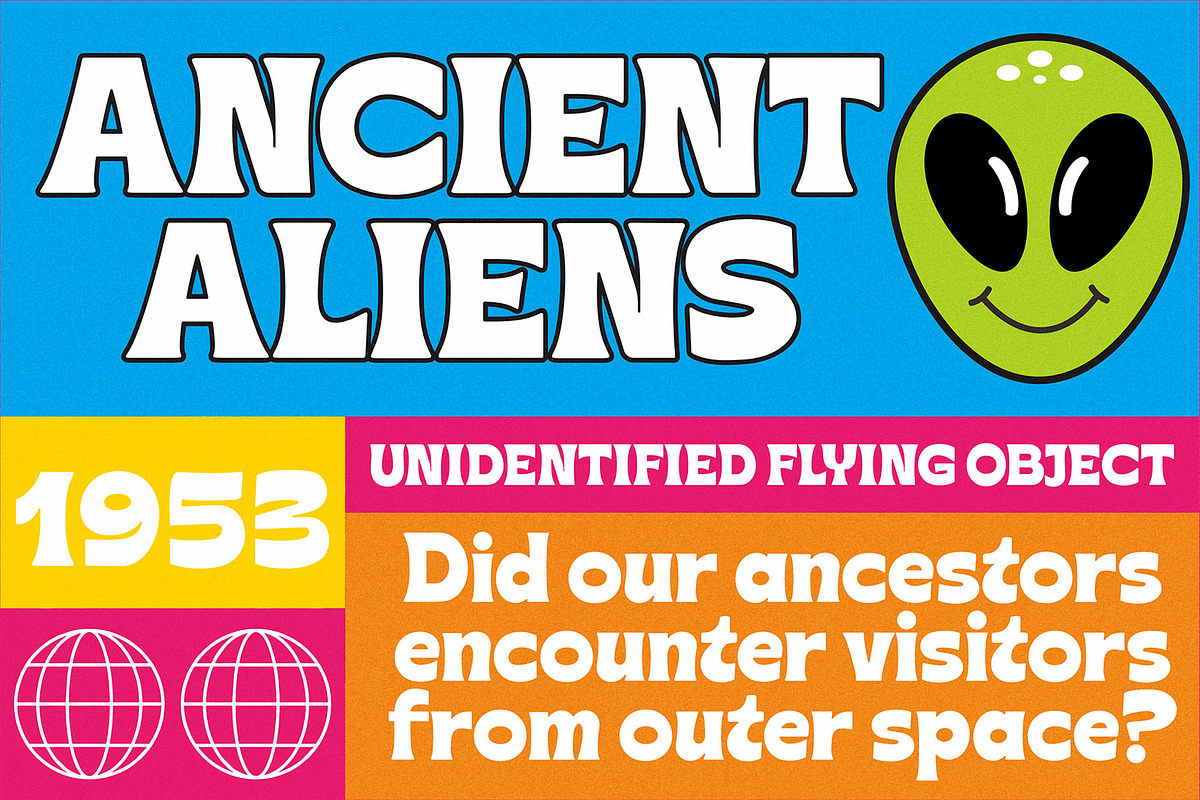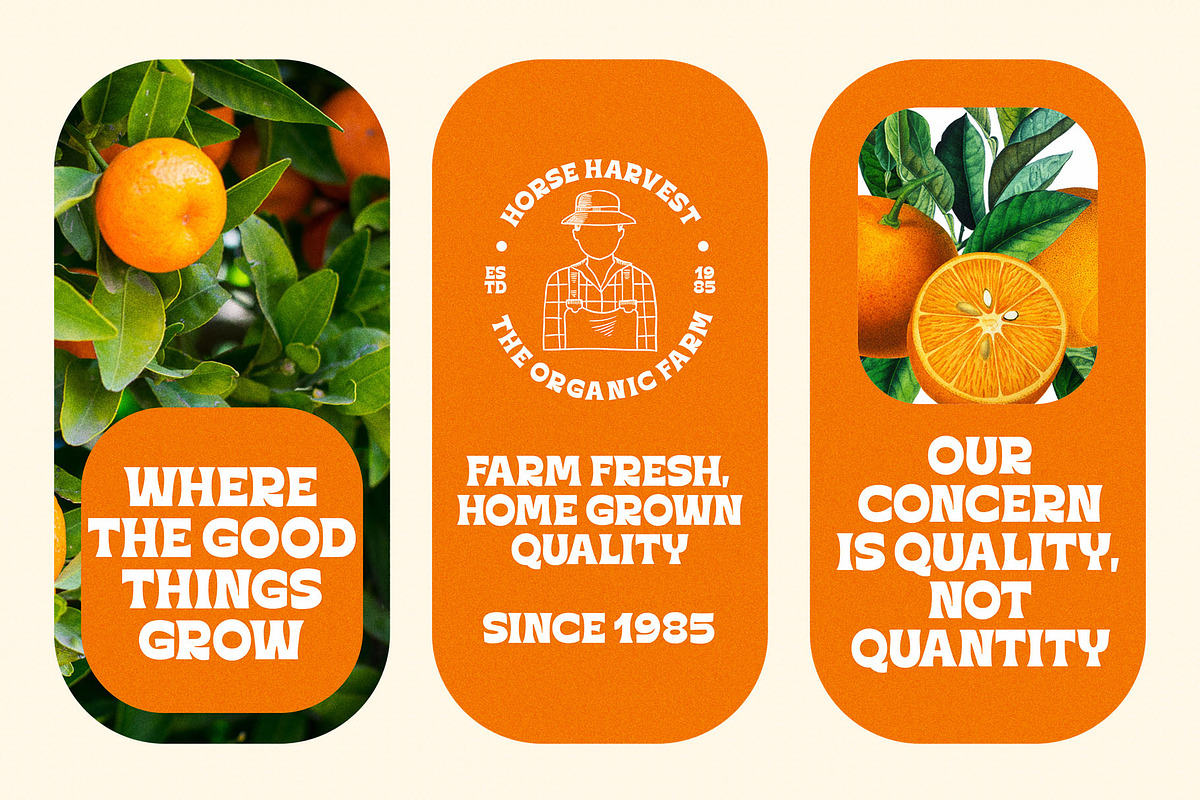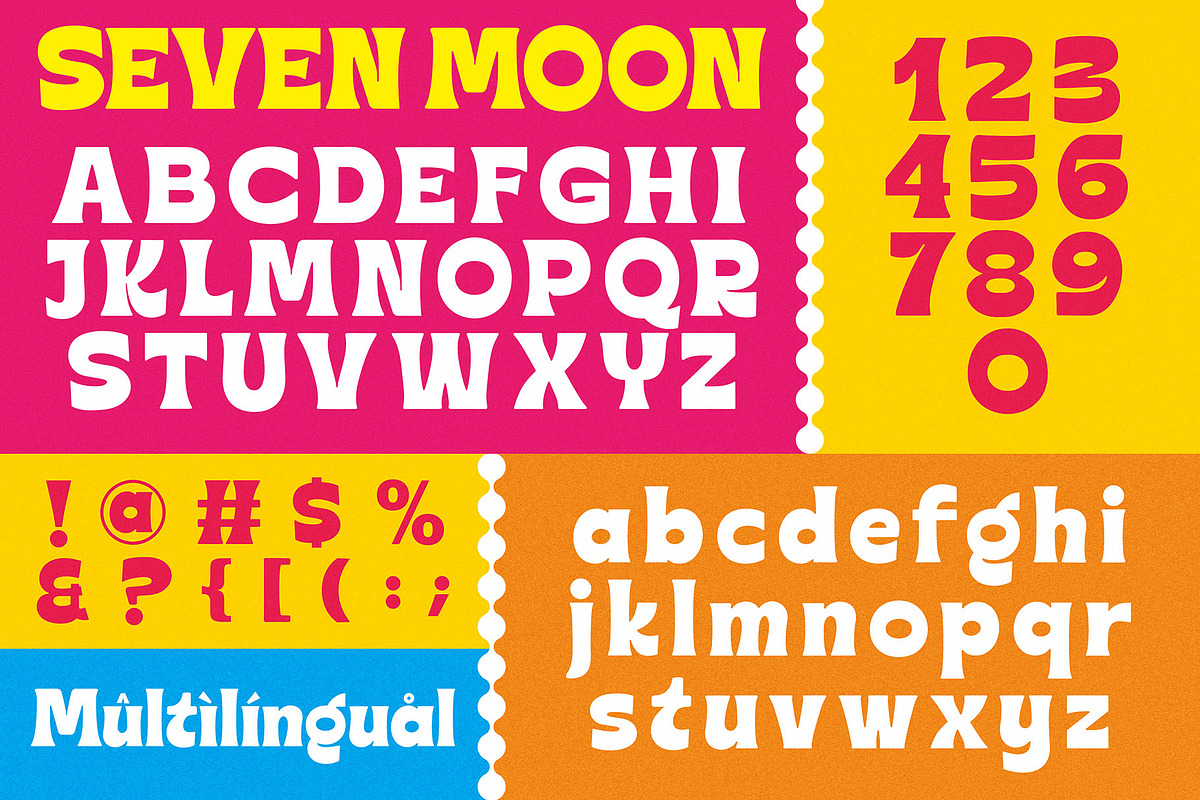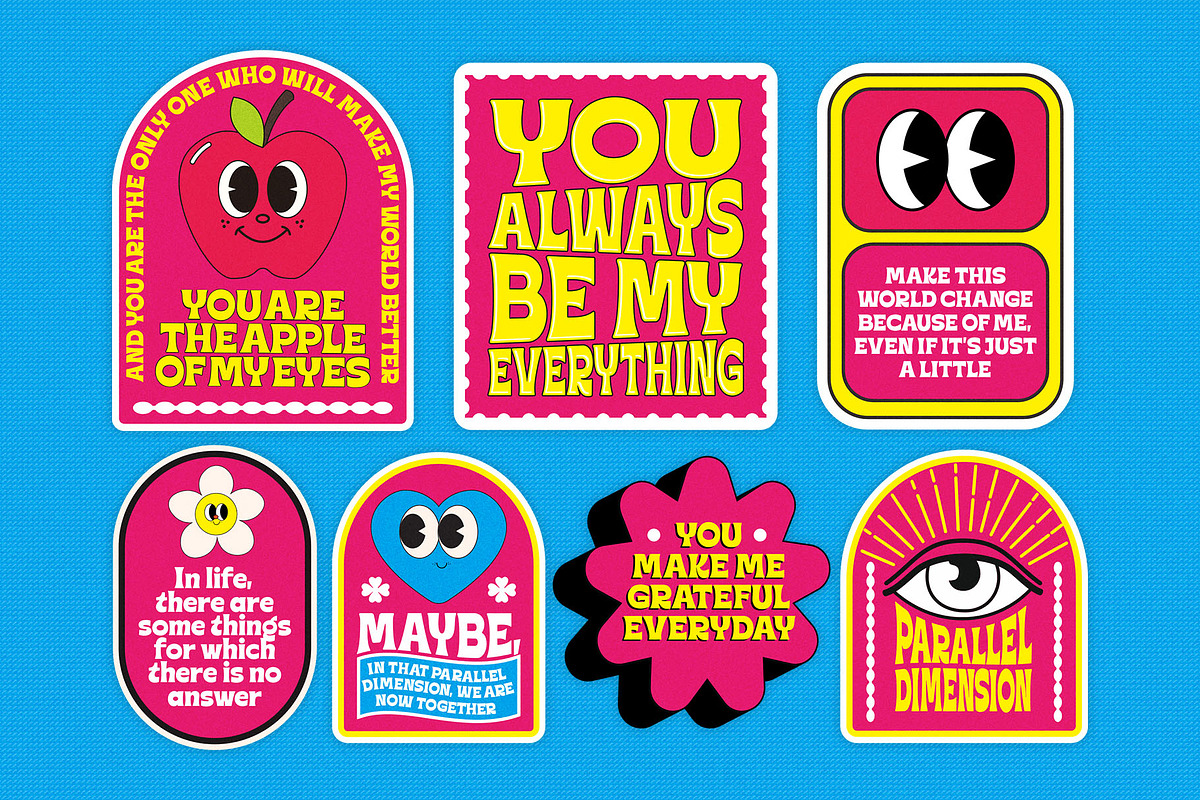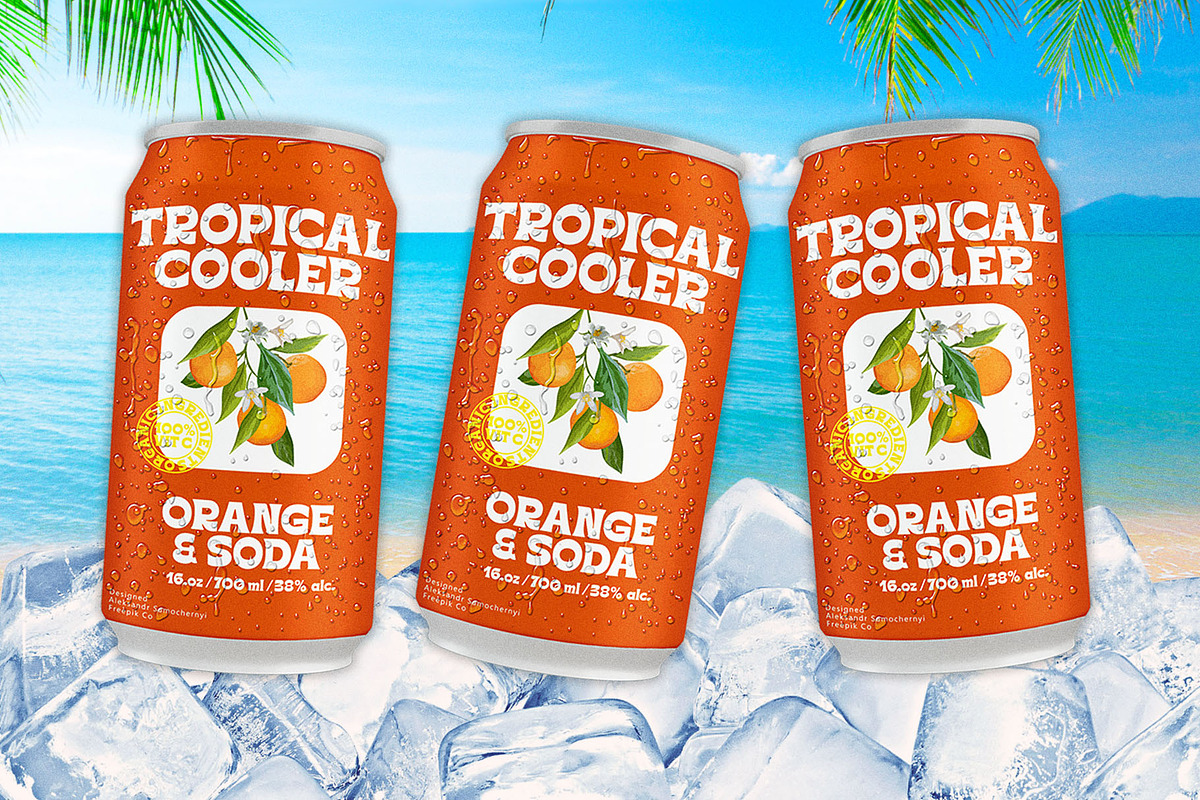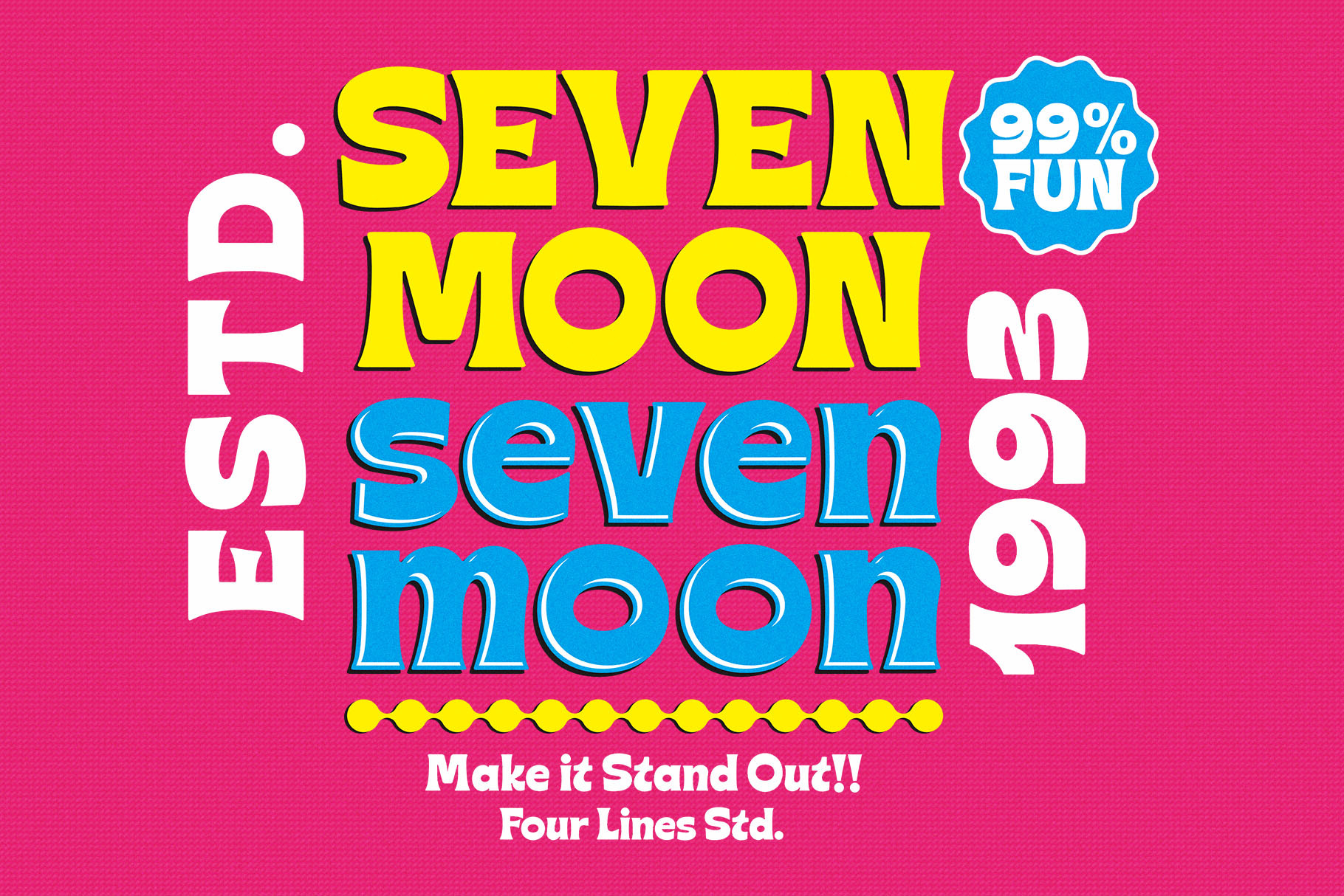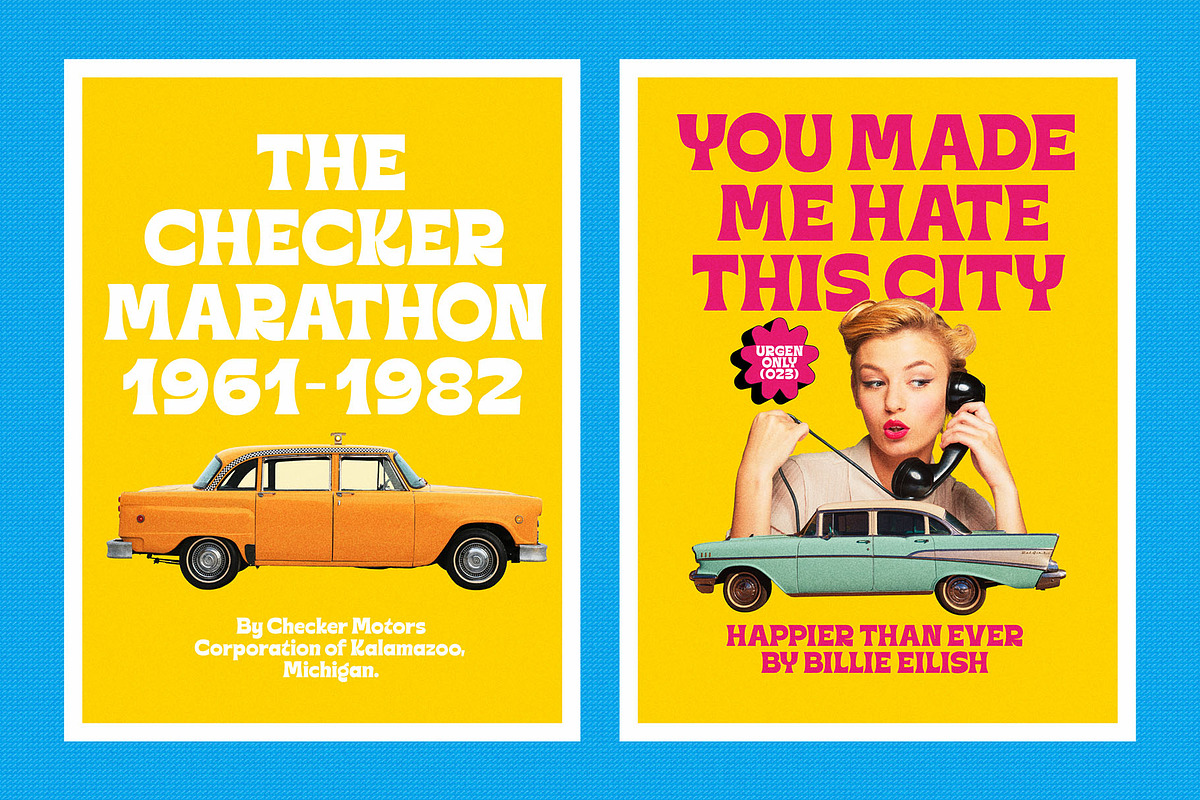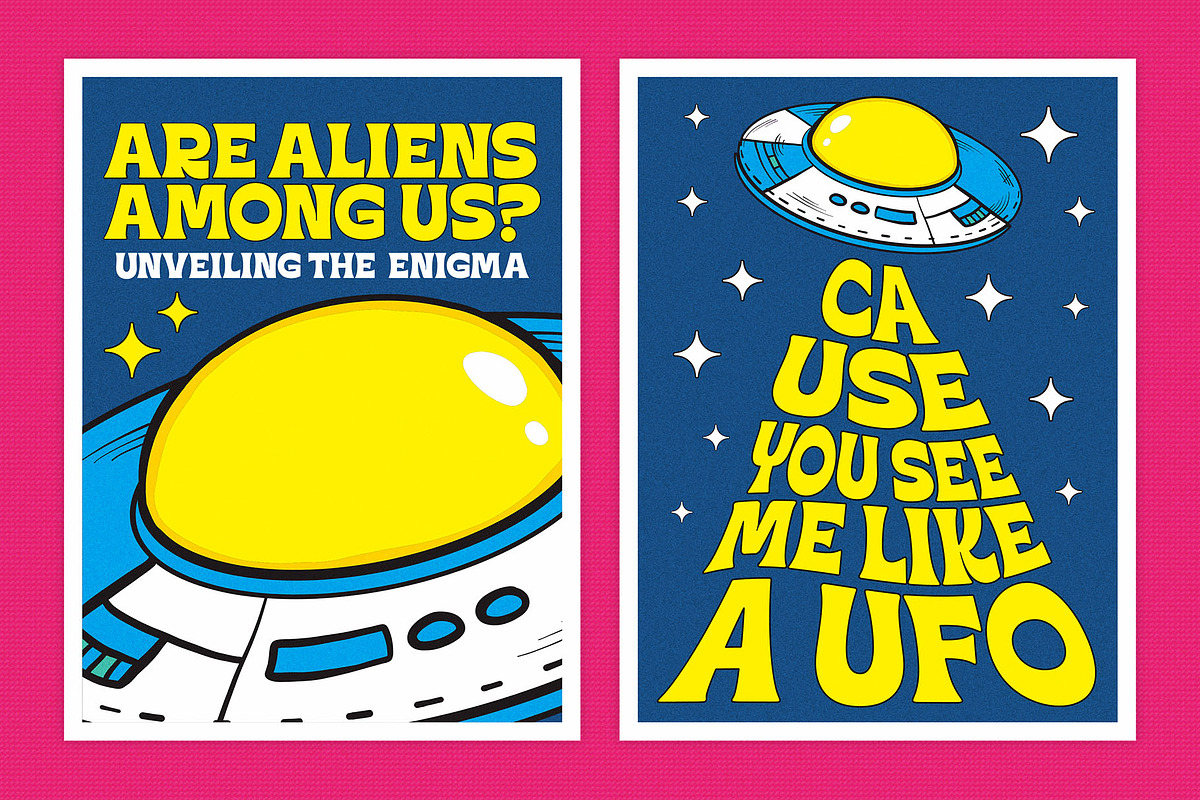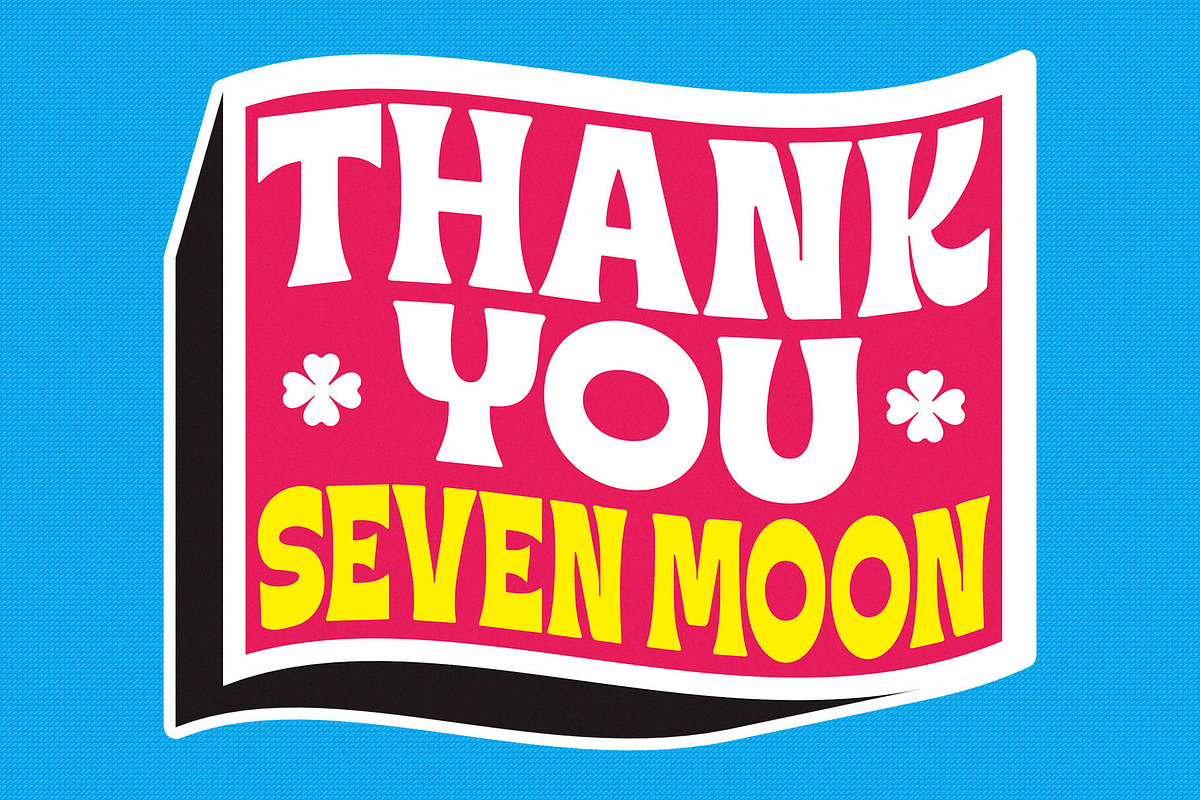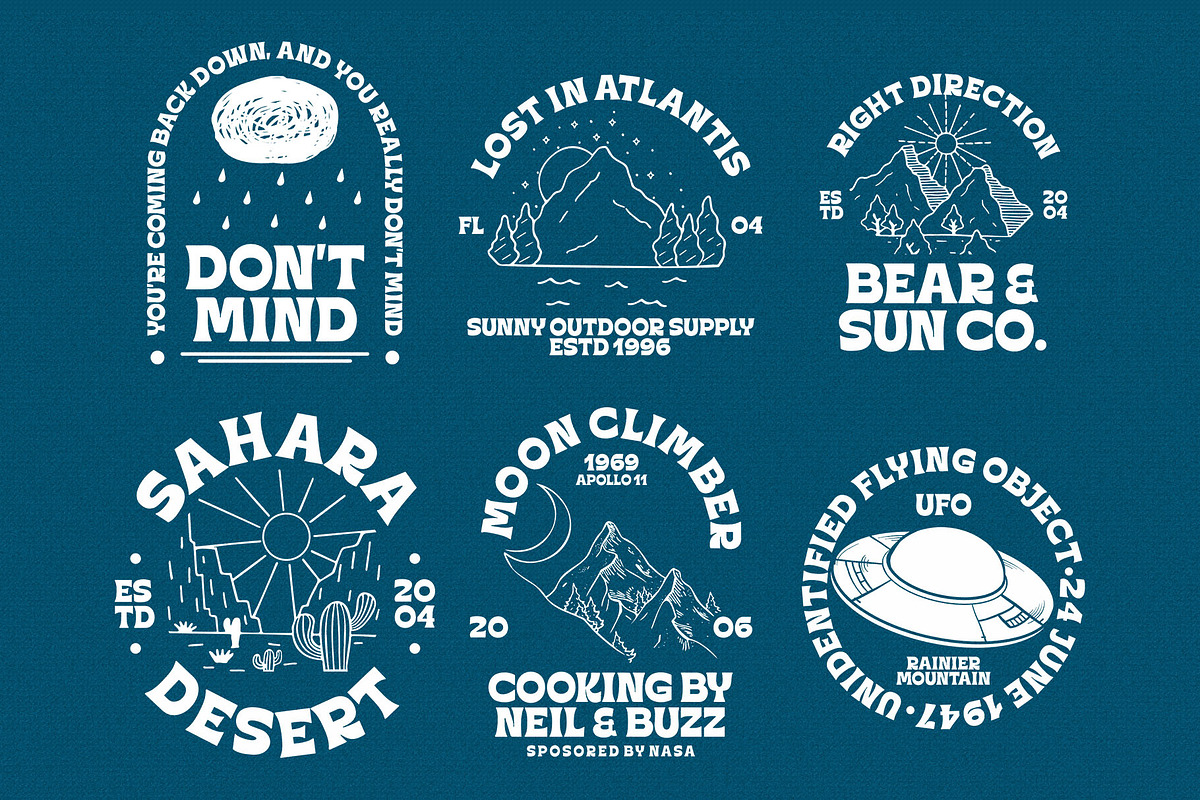
Seven Moon - Retro Display Font
Introducing Seven Moon: A Retro-Inspired Font with Bold and Cheerful Charm.
Seven Moon's cheerful charm shines through every character, evoking a sense of nostalgia and excitement. Its bold strokes and unique shape give it a strong presence, while its playful nature adds a touch of warmth and approachability.
This font is designed to command attention and leave a lasting impression. Its distinct style ensures that your message will be conveyed with impact, making it an excellent choice for branding, advertising, social media graphics, and more.